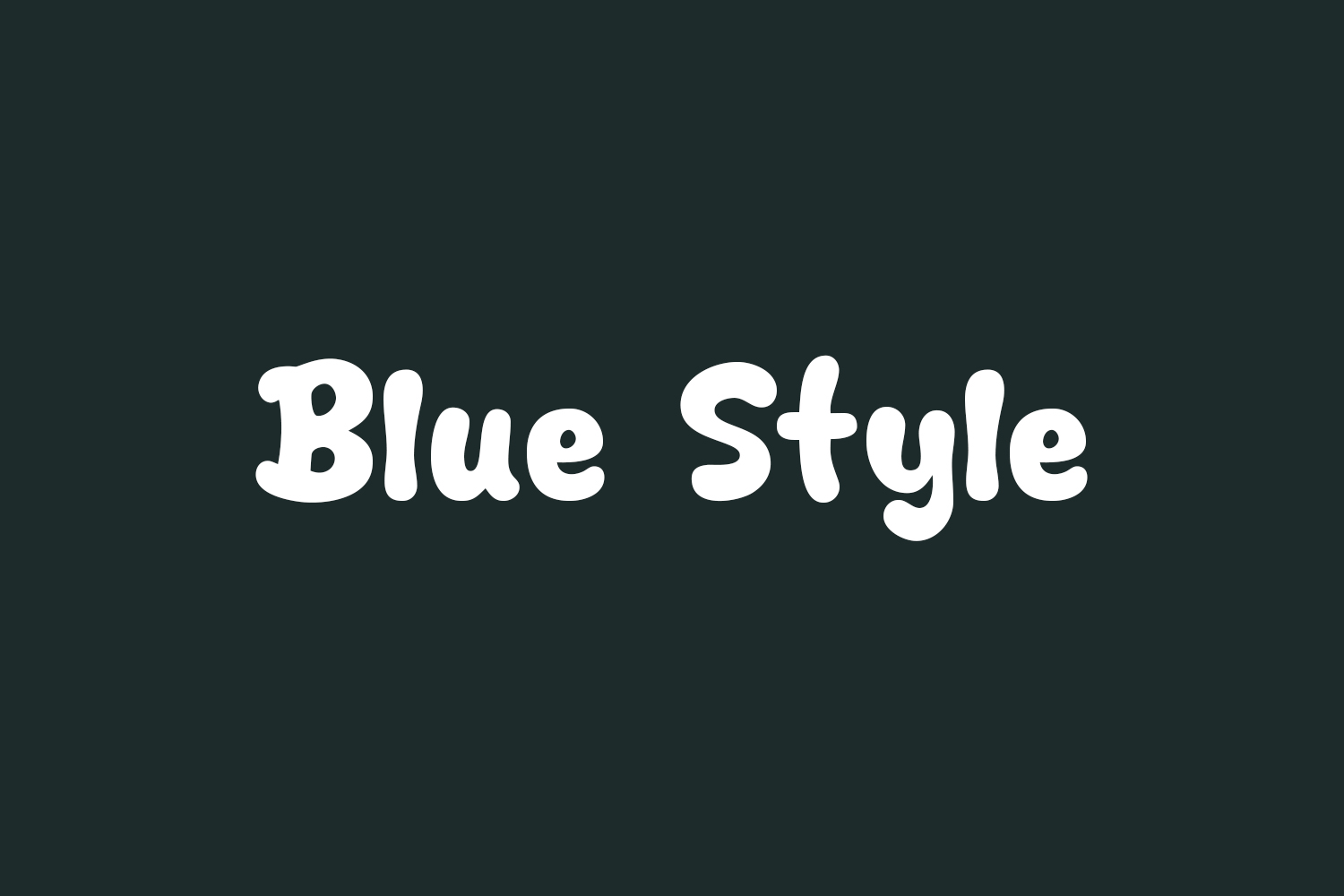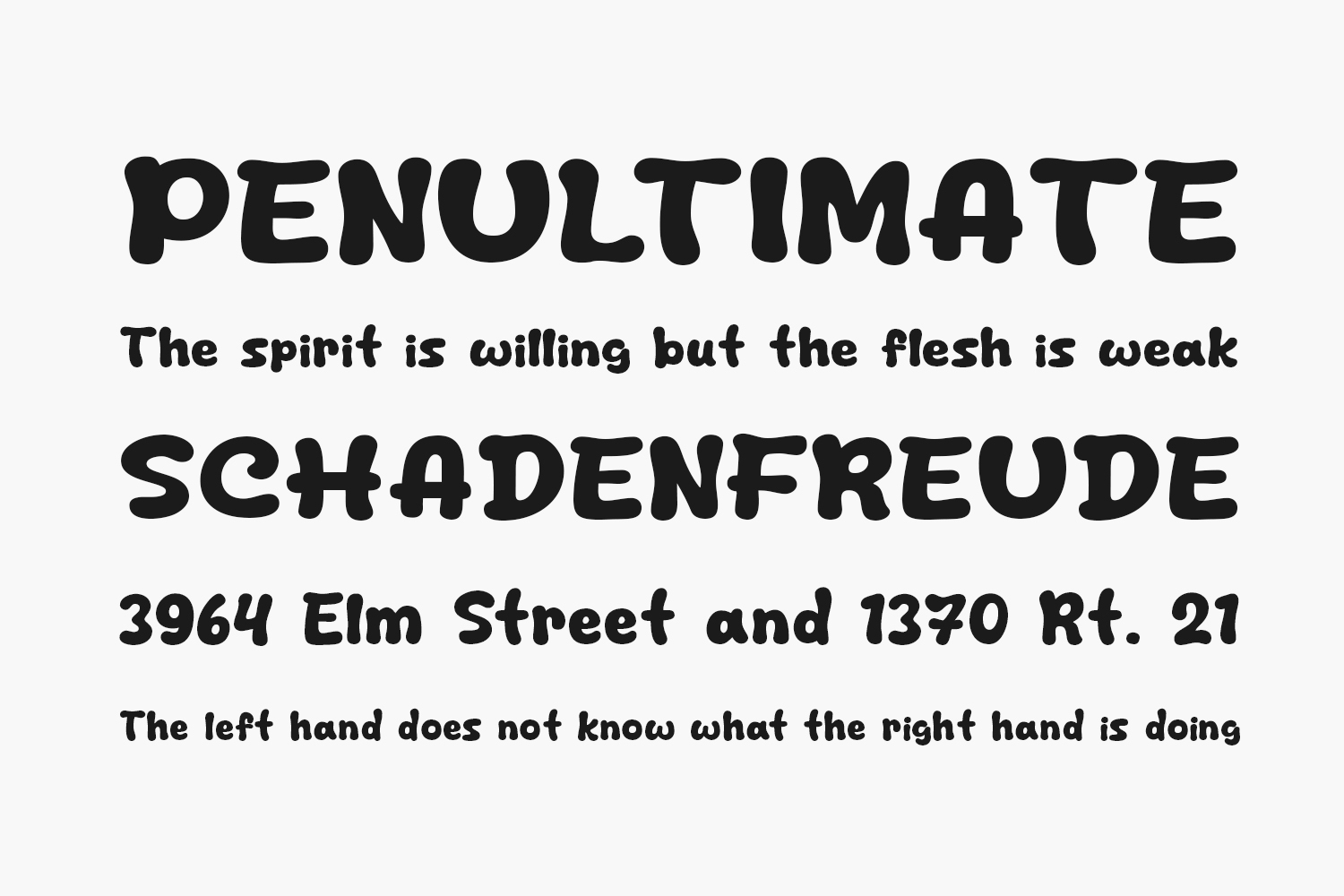
Introducing Blue Style Free Font, a lively and dynamic display typeface radiating personality and allure. Infused with whimsical letterforms and playful curves, this font injects a sense of fun into every design. Ideal for headlines, logos, and creative projects seeking a burst of character, Blue Style Font encapsulates the spirit of joy and creativity, ensuring your text stands out with its distinctive and energetic style. Blue Style Free Font is free for personal use only. Please purchase the full version for commercial use.